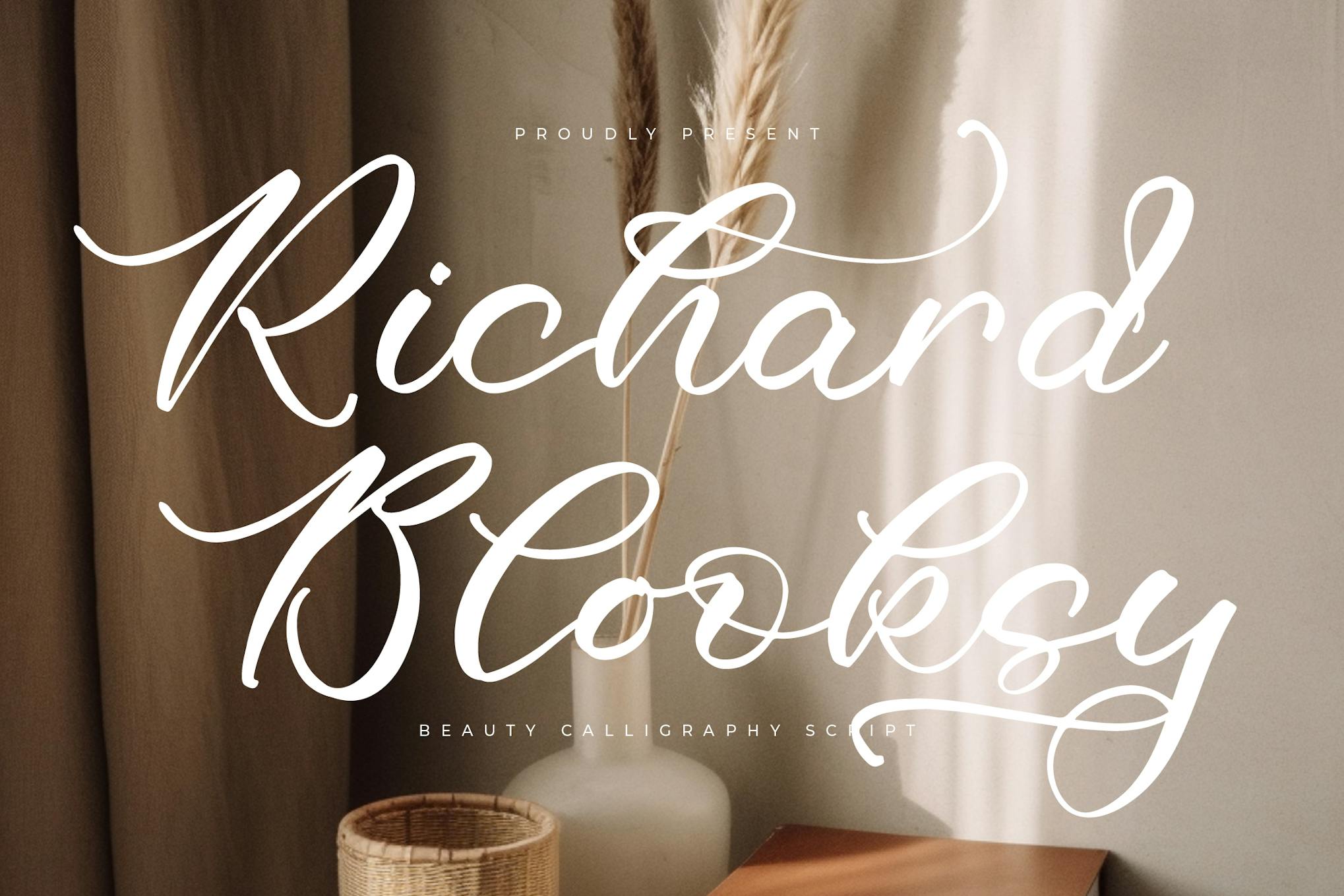
Richard Blooksy Calligraphy Script Font
The Richard Blooksy Calligraphy Script Font is perfect for wedding invitations, luxury branding projects, elegant logos, premium packaging design, high-end restaurant menus, boutique signage, greeting cards, social media graphics, book covers, and sophisticated editorial layouts.
What makes the Richard Blooksy Calligraphy Script Font so exciting is its sophisticated blend of traditional calligraphy elegance with modern design sensibilities. This stunning typeface features flowing letterforms, graceful curves, and carefully crafted ligatures that bring a sense of luxury and refinement to any project. The font's organic feel and handcrafted appearance create an authentic, personal touch that resonates with audiences seeking premium quality and artistic excellence.
The Richard Blooksy Calligraphy Script Font family includes multiple weights and variations, featuring Regular, Bold, Light, and Italic styles. Each variation maintains the signature elegance while offering different levels of visual impact, allowing designers maximum flexibility in their creative projects.
The intricate details of Richard Blooksy Calligraphy Script Font showcase masterful typography craftsmanship, with each character carefully designed to flow seamlessly into the next. The font's extensive character set includes uppercase and lowercase letters, numerals, punctuation marks, and special symbols, ensuring comprehensive coverage for international projects and diverse design requirements.
Perfect for both digital and print applications, this remarkable font maintains its elegance and readability across various sizes and formats. From large-scale signage to delicate invitation text, Richard Blooksy Calligraphy Script Font adapts beautifully to any creative challenge while maintaining its distinctive character and sophisticated appeal.